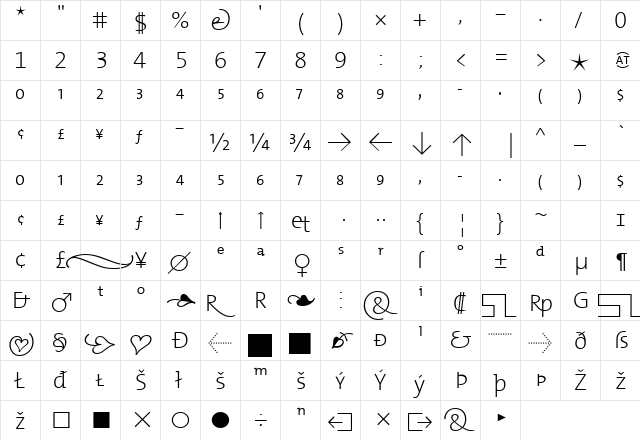
TheMixExtraLight-Expert Regular
Design Context for TheMixExtraLight-Expert Typeface
TheMixExtraLight-Expert offers clean, dependable letterforms without strong stylistic allegiance, making it a practical choice for designers who need flexibility. Its slender proportions lend an understated elegance to any composition.